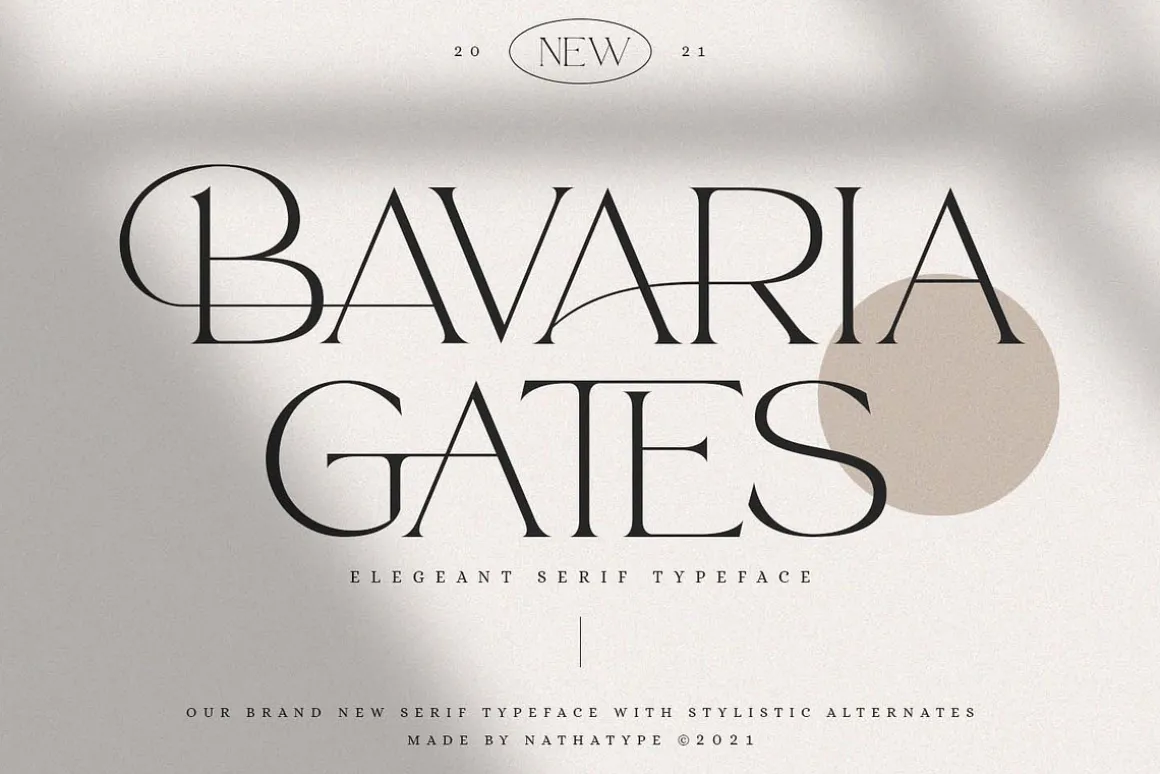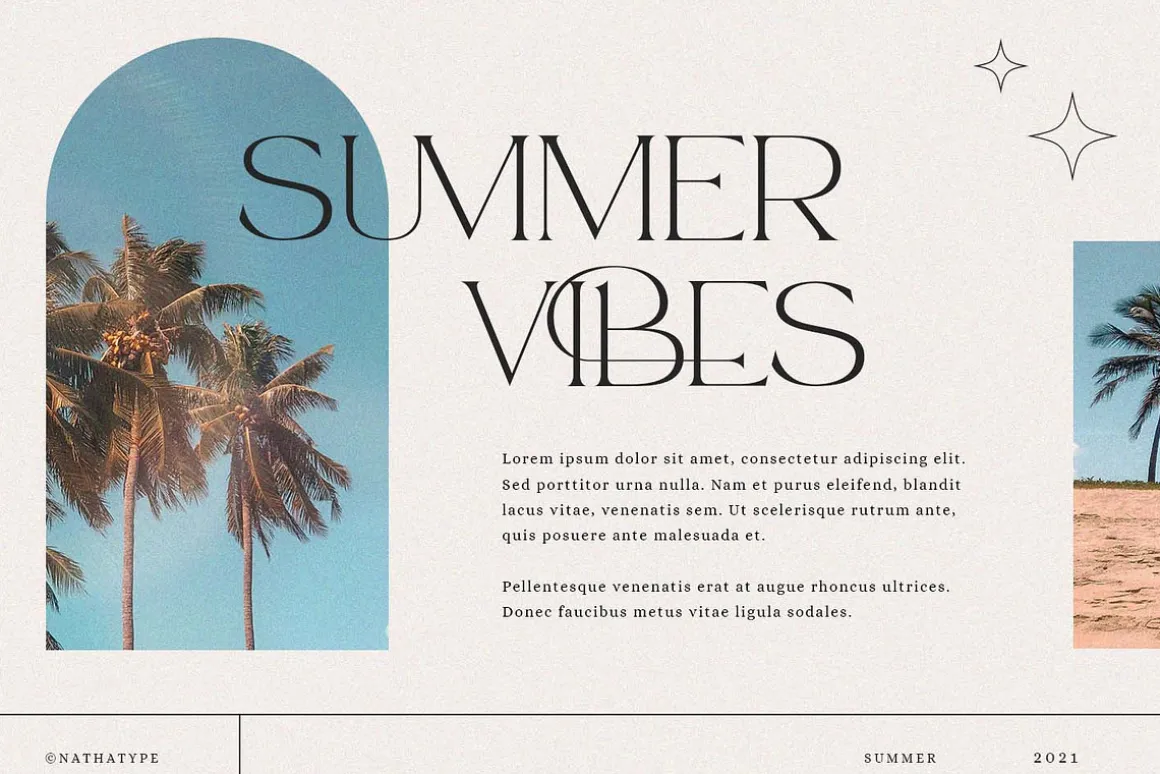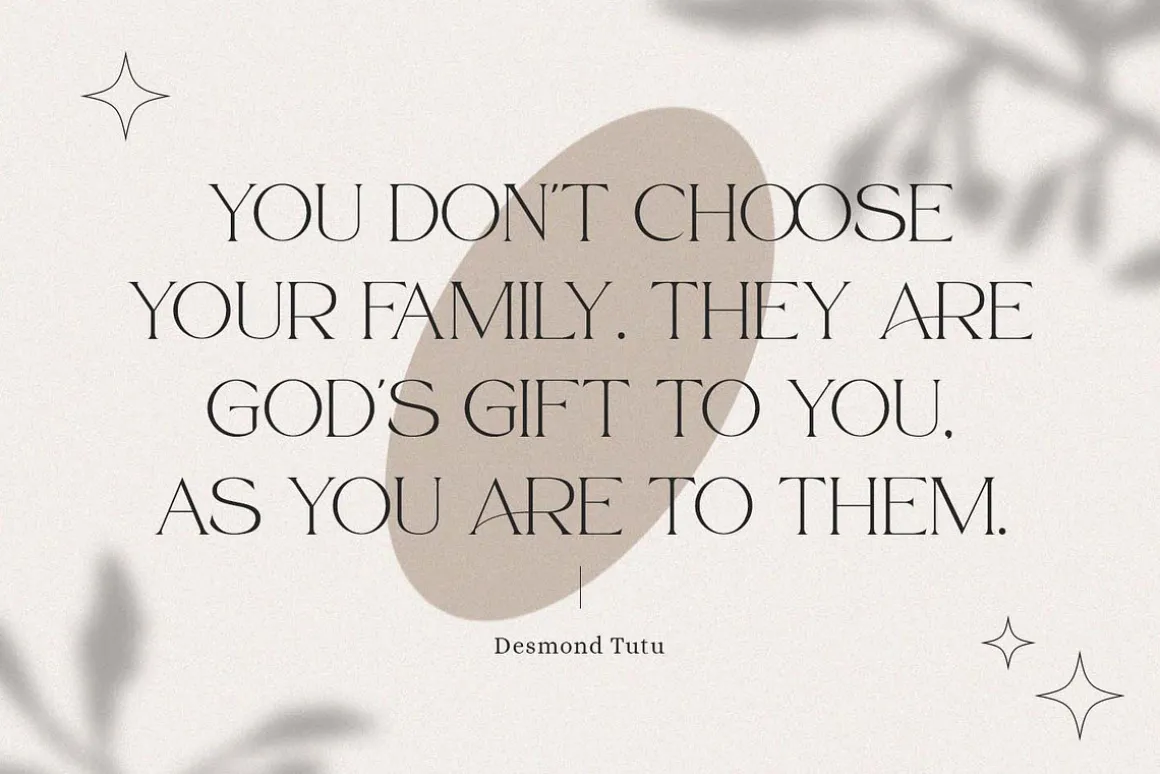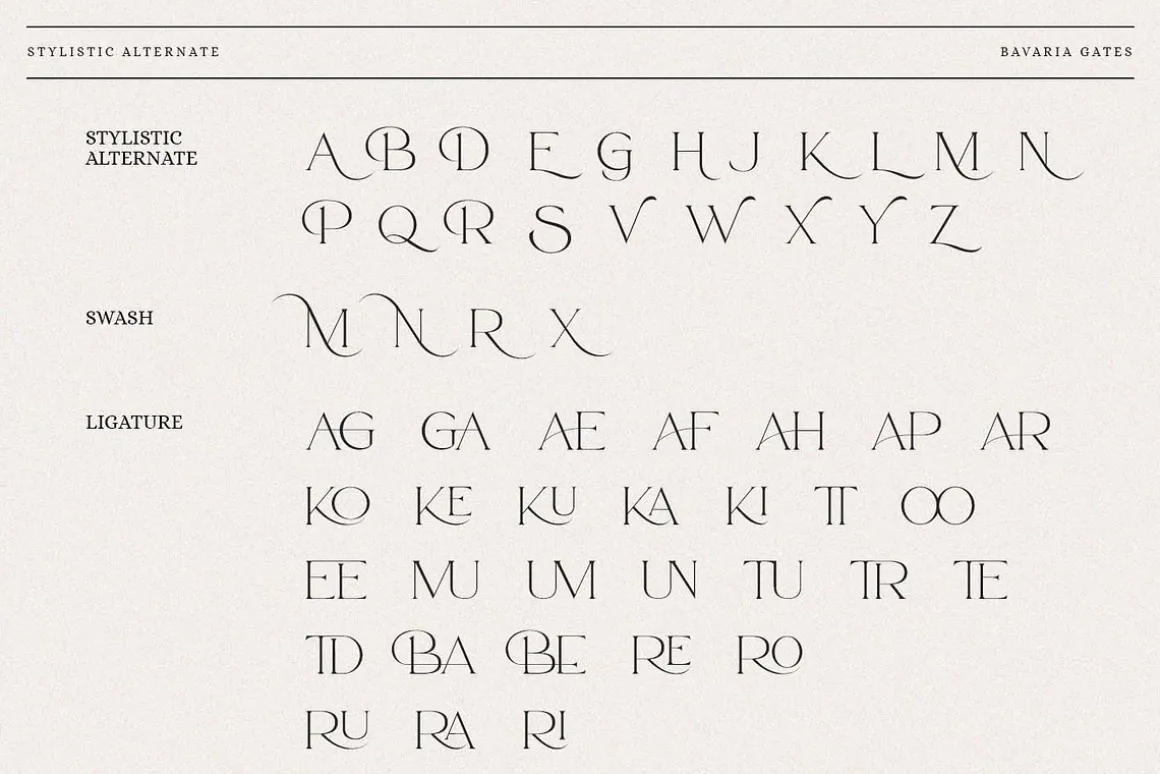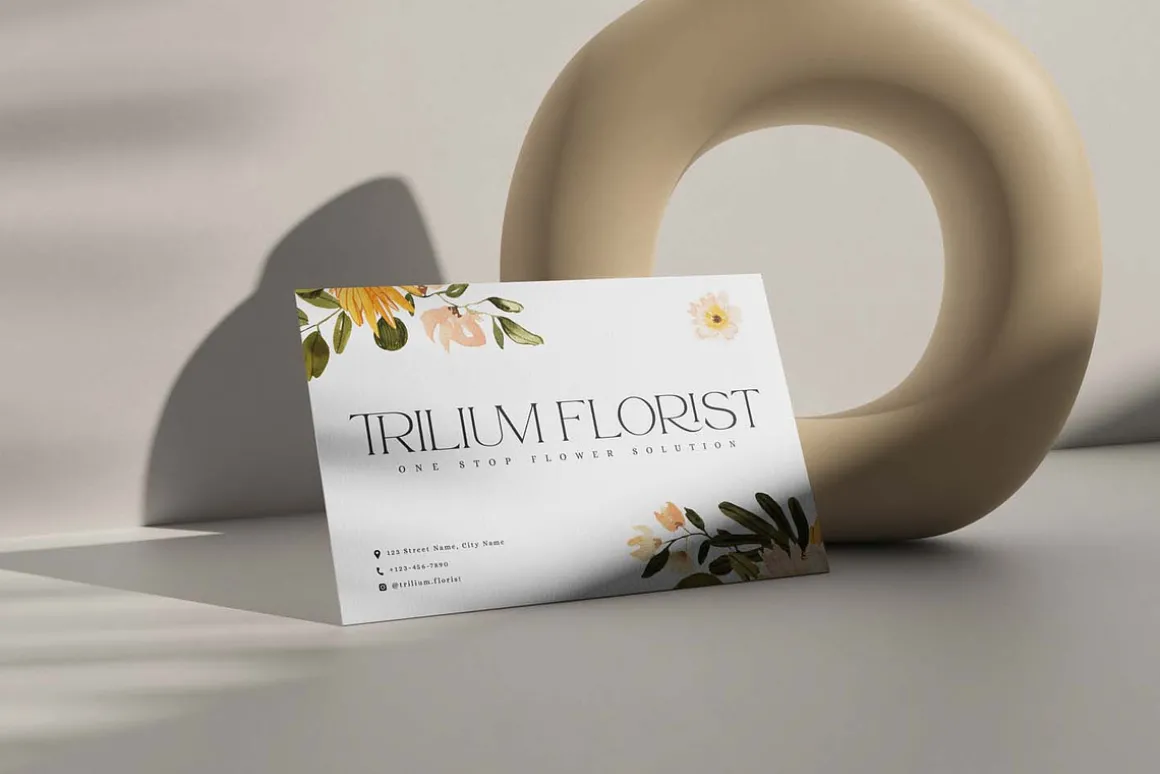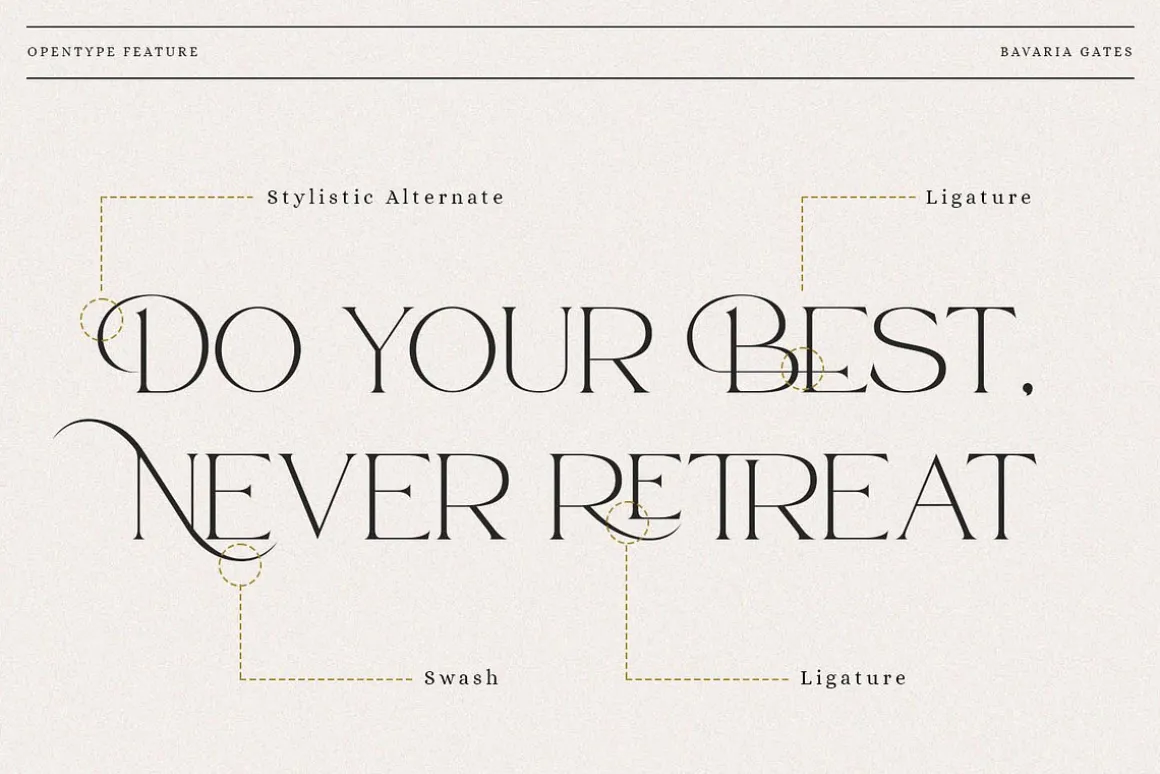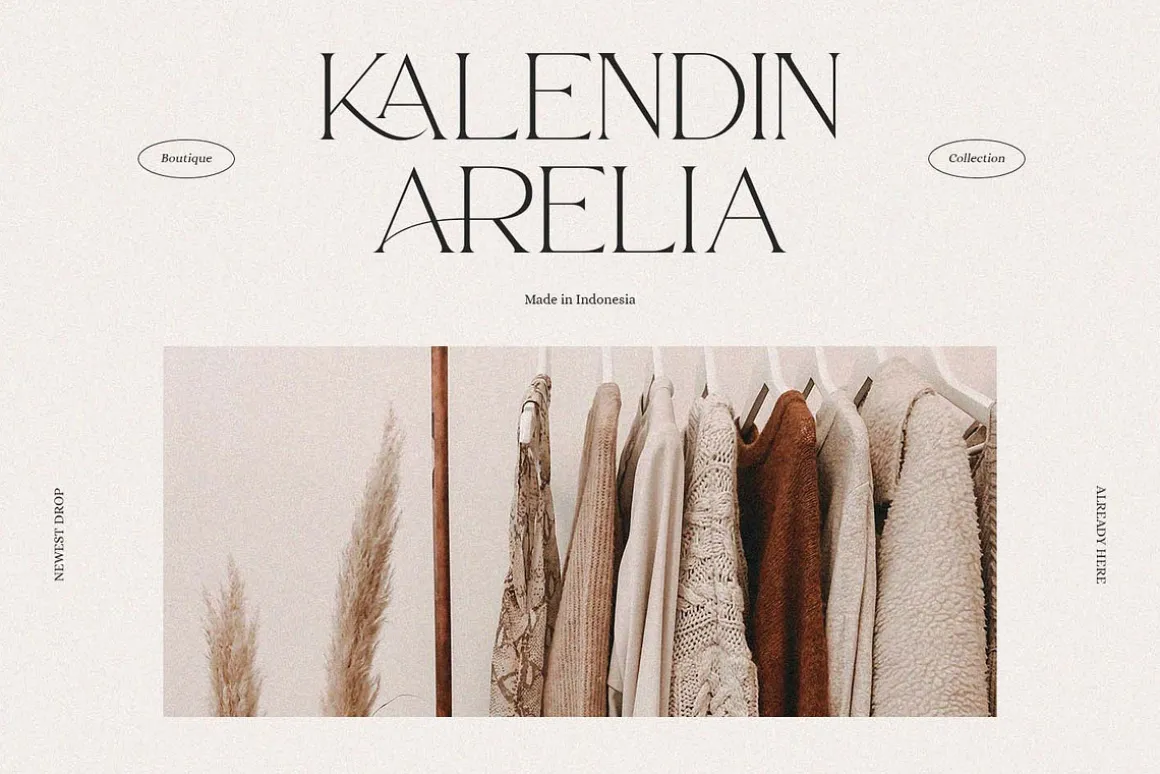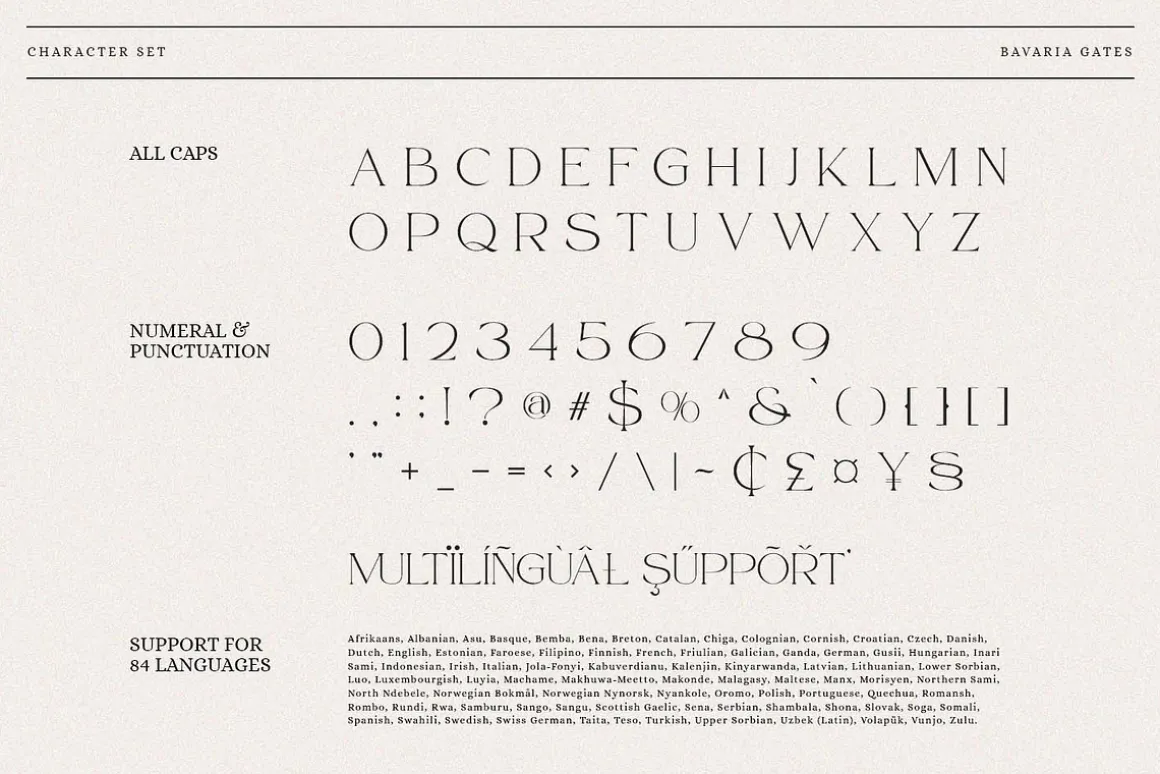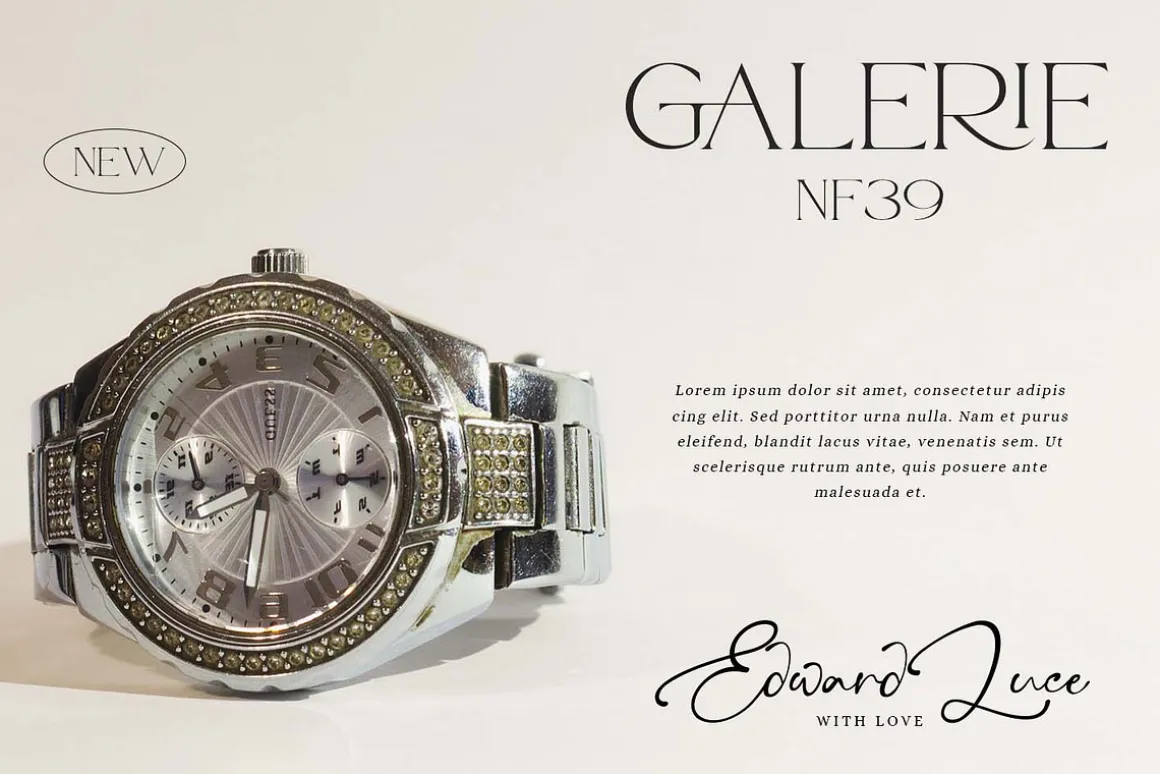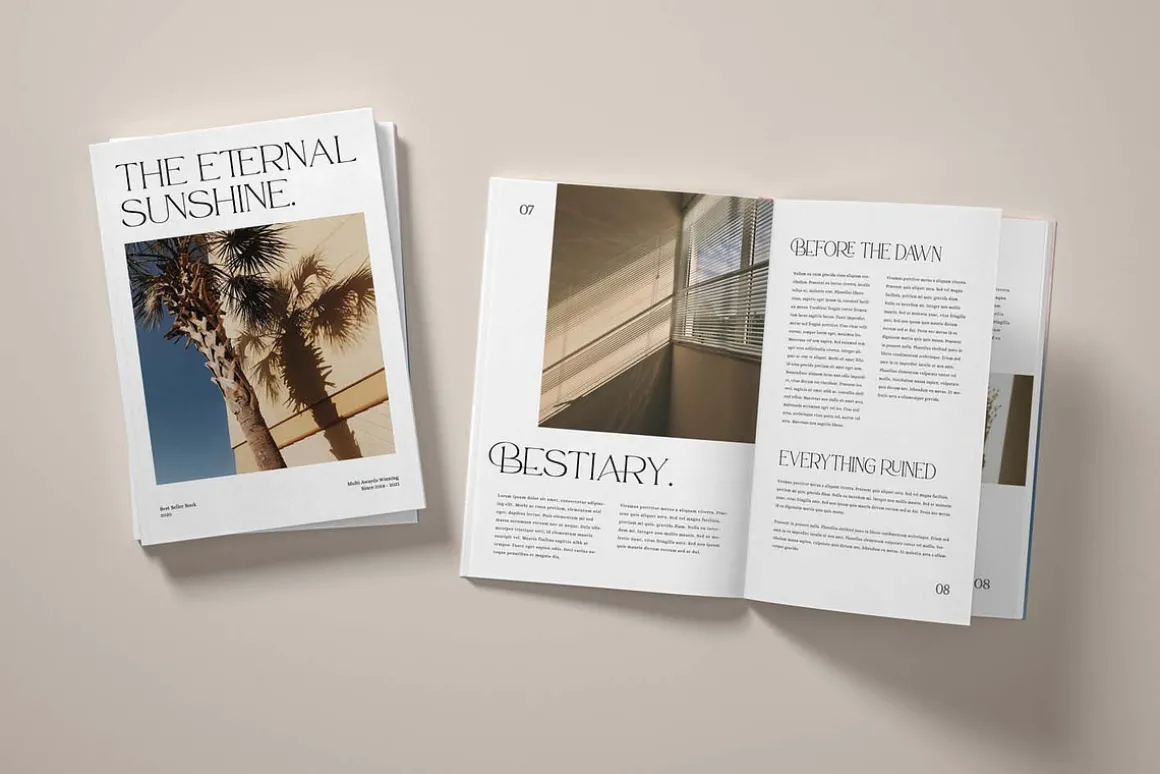
Bavaria Gates-A Serif Font
Bavaria Gates is a serif typeface that is made all characters in uppercase. An excellent choice to add the right amount ofmodern touch. With style looks very interesting for loads of different projects and promotions. A great all-in-one package for your logo, book cover, poster, t-shirt, branding, and advertisement needs.
- Ligatures
- Alternates
- Swashes
- Numerals and Punctuation